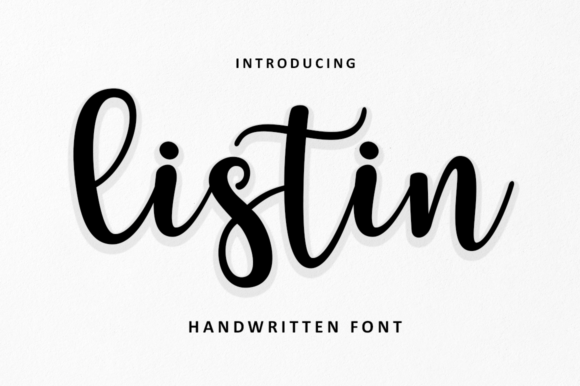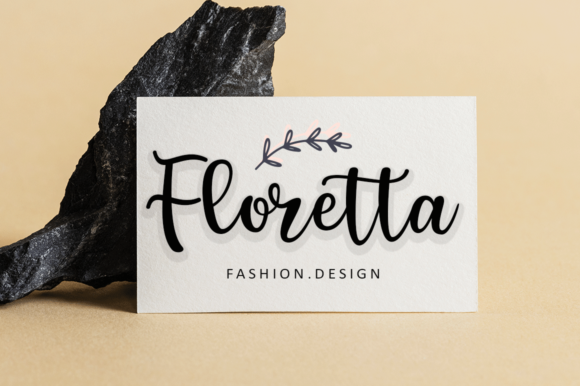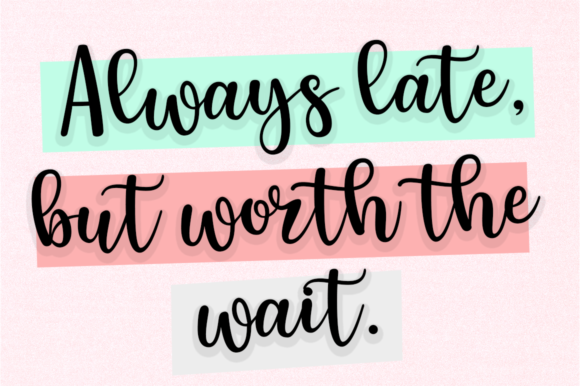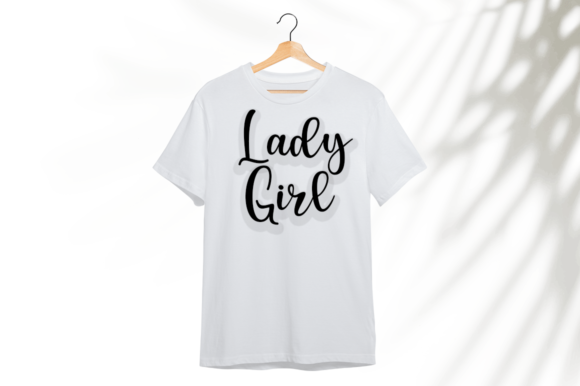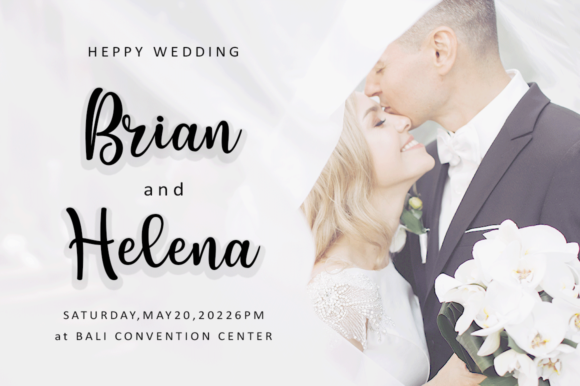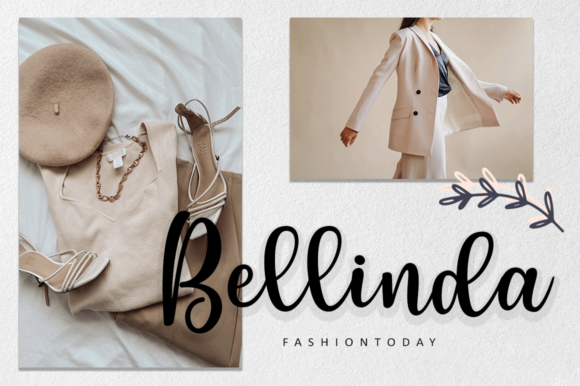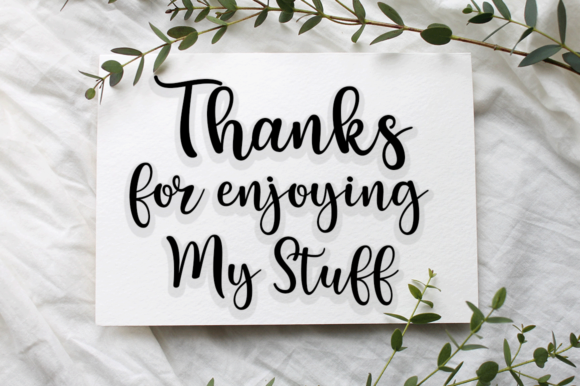
Listin Script Font
Introducing “Listin Script,” a delicate and elegant script font that exudes sophistication with every stroke. Its distinctive and meticulously crafted letters elevate it to the status of a true masterpiece. Fall in love with its incredibly versatile style and use it to create spectacular designs!
Listin Script’s graceful curves and balanced proportions lend a timeless beauty to any text, making it the perfect choice for a wide array of creative projects. Whether you’re designing wedding invitations, branding materials, or social media graphics, Listin Script effortlessly infuses your work with an air of refinement and charm.
The intricate details of Listin Script ensure both readability and style, allowing your message to resonate clearly while maintaining an aura of elegance. Its versatility knows no bounds, seamlessly adapting to various design themes and aesthetics.
Immerse yourself in the enchanting allure of Listin Script and let your creativity soar as you craft designs that truly captivate. Embrace its enchanting charm and watch as it transforms your projects into works of art.
In conclusion, Listin Script is more than just a font—it’s a tool that empowers you to create breathtaking designs that leave a lasting impression. Embrace its elegance, embrace its versatility, and let Listin Script be the cornerstone of your next design masterpiece.